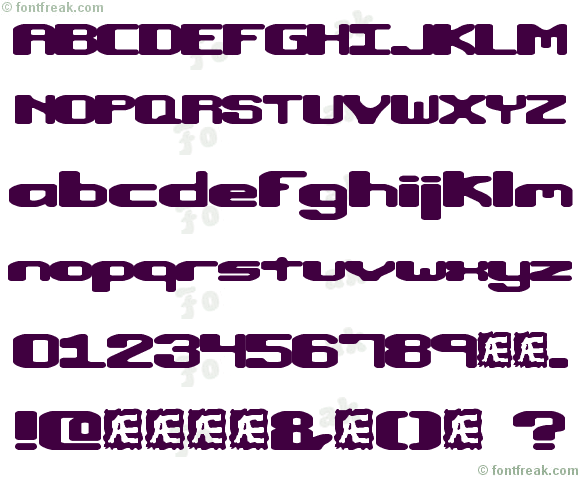
Macropsia (BRK)
About Macropsia
Macropsia by Ænigma Fonts is a striking display font that captures attention with its unique visual style. This font is characterized by its bold, geometric forms and clean lines, which make it an ideal choice for a variety of creative projects. The stroke weight is consistent throughout, providing a harmonious balance while maintaining a strong presence. The contrast in the letterforms is subtle yet effective, ensuring legibility without sacrificing aesthetic appeal. The spacing is thoughtfully designed, allowing for an airy feel that enhances readability even at larger sizes.
Macropsia excels in various applications, making it a versatile addition to any designer's toolkit. It is particularly well-suited for wedding invitations, where its elegant and modern flair can elevate the overall design. Additionally, it's perfect for movie posters, as its bold character draws the eye and conveys a sense of drama. Restaurant menus can also benefit from Macropsia's unique style, adding a contemporary touch to food presentations. Moreover, it can be effectively used in branding projects, helping small business owners create memorable logos and promotional materials that stand out in a crowded market.
What sets Macropsia apart is its ability to blend modern aesthetics with practical usability. This font provides a fresh take on display typography, making it an excellent choice for anyone seeking to make a statement in their designs. For those interested, the Macropsia font free download is readily available, inviting you to explore its potential in your next creative endeavor.